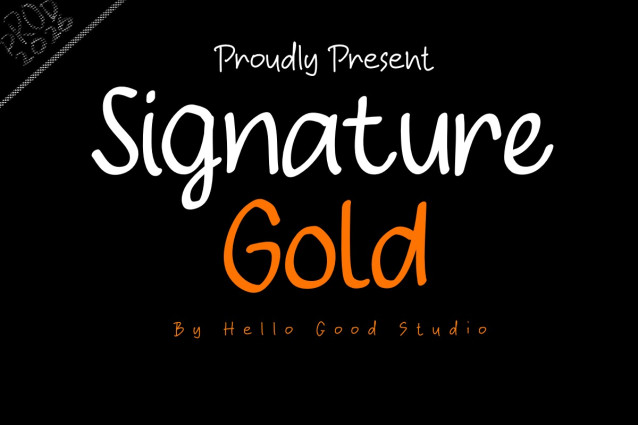
Signature Gold Font
Signature Gold Font is a simple and friendly handwritten font. Its natural and unique style makes it incredibly fitting to a large pool of designs. The only limit is your imagination!